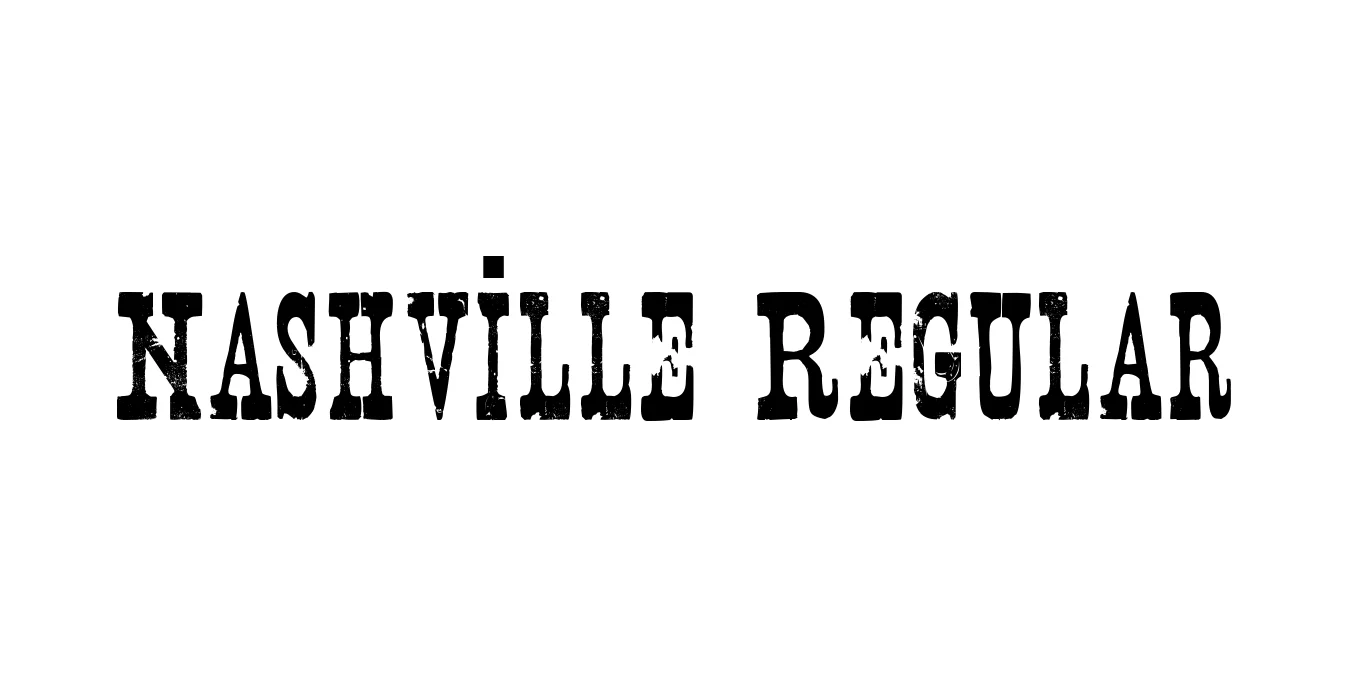
Nashville Regular
Designed by Disturbed Type
| Category | Slab Serif |
Nashville Regular is a classic slab-serif typeface that captures the rustic essence of the American West. Its robust letterforms and heavy serifs provide a sense of heritage and durability, making it a staple for vintage-inspired designs. Often associated with wood-block printing and traditional signage, this font evokes a nostalgic Americana feel that is both bold and approachable.
The design of Nashville features strong horizontal strokes and distinct slab serifs that ensure high legibility even in textured or distressed environments. It is particularly effective for branding projects that require a touch of "Old West" charm or a hardworking, industrial aesthetic. Whether used for headlines or logo marks, Nashville Regular stands as a versatile choice for designers seeking a timeless, rugged appearance.
Nashville Regular Best Uses
Perfect for creating rugged, heritage-focused brand identities.
Excellent for bold, attention-grabbing headlines in vintage posters.
Great for t-shirt graphics and merchandise with a rustic feel.